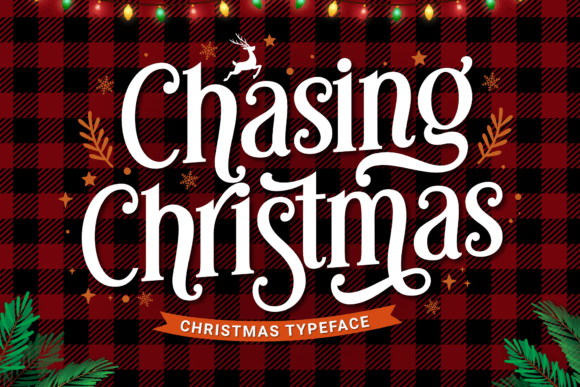
Are you on the hunt for the perfect font to add a touch of festive charm to your projects? Look no further than Chasing Christmas Font, the best font for names in Cricut! Created by Holydie Studio, this font will captivate your audience with its playful and joyful vibes.
Chasing Christmas is not your ordinary serif font. It goes beyond the conventional, allowing you to unleash your creativity and spread holiday cheer through your designs. Its unique and eye-catching style will instantly grab attention and make your projects stand out from the crowd.
What sets Chasing Christmas apart is its PUA encoding, which grants you effortless access to a wide array of glyphs and swashes. Whether you're embellishing names, quotes, or headlines, this font offers endless possibilities. Let your imagination run wild and watch your designs come to life with every stroke of this versatile font.
With Chasing Christmas, you can infuse your creations with a sense of warmth and magic. Its festive aura will evoke emotions of joy, excitement, and anticipation, making it ideal for holiday-themed projects, invitations, greeting cards, and more. Spread the holiday spirit effortlessly with this font that never fails to mesmerize.
But Chasing Christmas doesn't limit itself to just one season. Its timeless appeal ensures that it can be used throughout the year for various occasions. From weddings to birthdays, anniversaries to baby showers, this font guarantees a touch of elegance and sophistication to any event.
Not only does Chasing Christmas bring your designs to life, but it also sparks inspiration within you. It encourages you to explore new possibilities, experiment with different layouts, and create something truly unique. Let this font be your muse as it guides you towards captivating and visually stunning creations.
So why wait? Unlock the magic of Chasing Christmas Font today and experience the joy it brings to your designs. Whether you're a professional designer or a DIY enthusiast, this font is perfect for adding that extra special touch. Spread smiles, spread cheer, and let Chasing Christmas Font be the centerpiece of your creative endeavors.